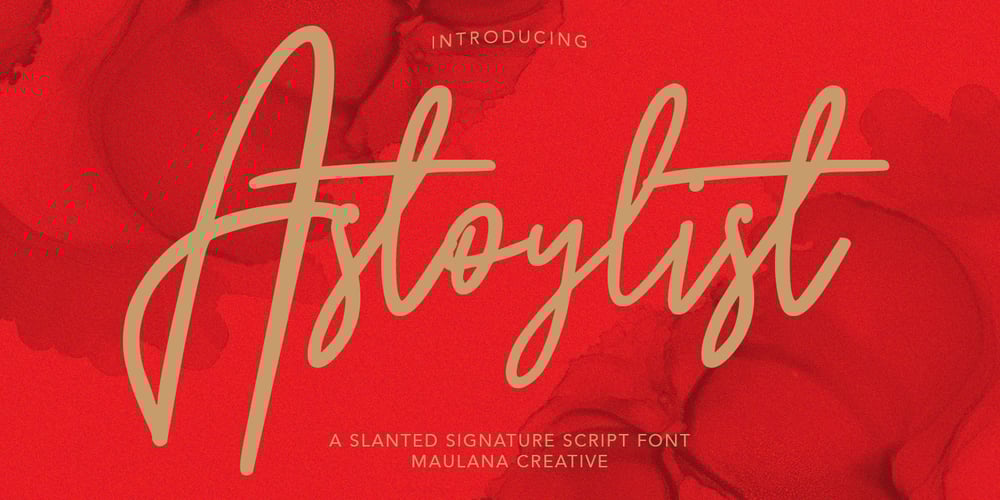
Astoylist Font Family was designed by Gilang Maulana and published by Maulana Creative. Astoylist contains 1 styles and family package options. Astoylist Slanted Signature Script FontGive your designs an authentic handcrafted feel. Astoylist Slanted Signature Script Font is perfectly suited to logo, stationery, branding, typography quotes, magazine or book cover, website header, clothing, branding, packaging design, restaurant and more.Thanks for use this font.Maulana Creative